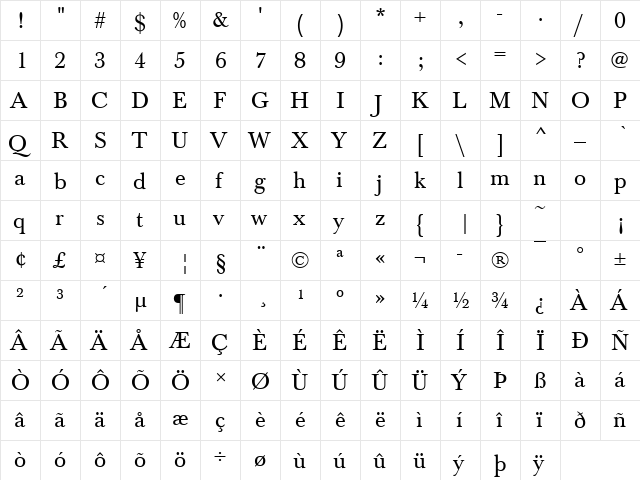
Baskerville Becker Regular
Design Context for Baskerville Becker Typeface
Baskerville Becker is a composed and adaptable typeface that performs quietly and consistently across a wide range of design contexts.
Pro Tip: Use Baskerville Becker in both headline and body roles to test its range before committing to a single application.